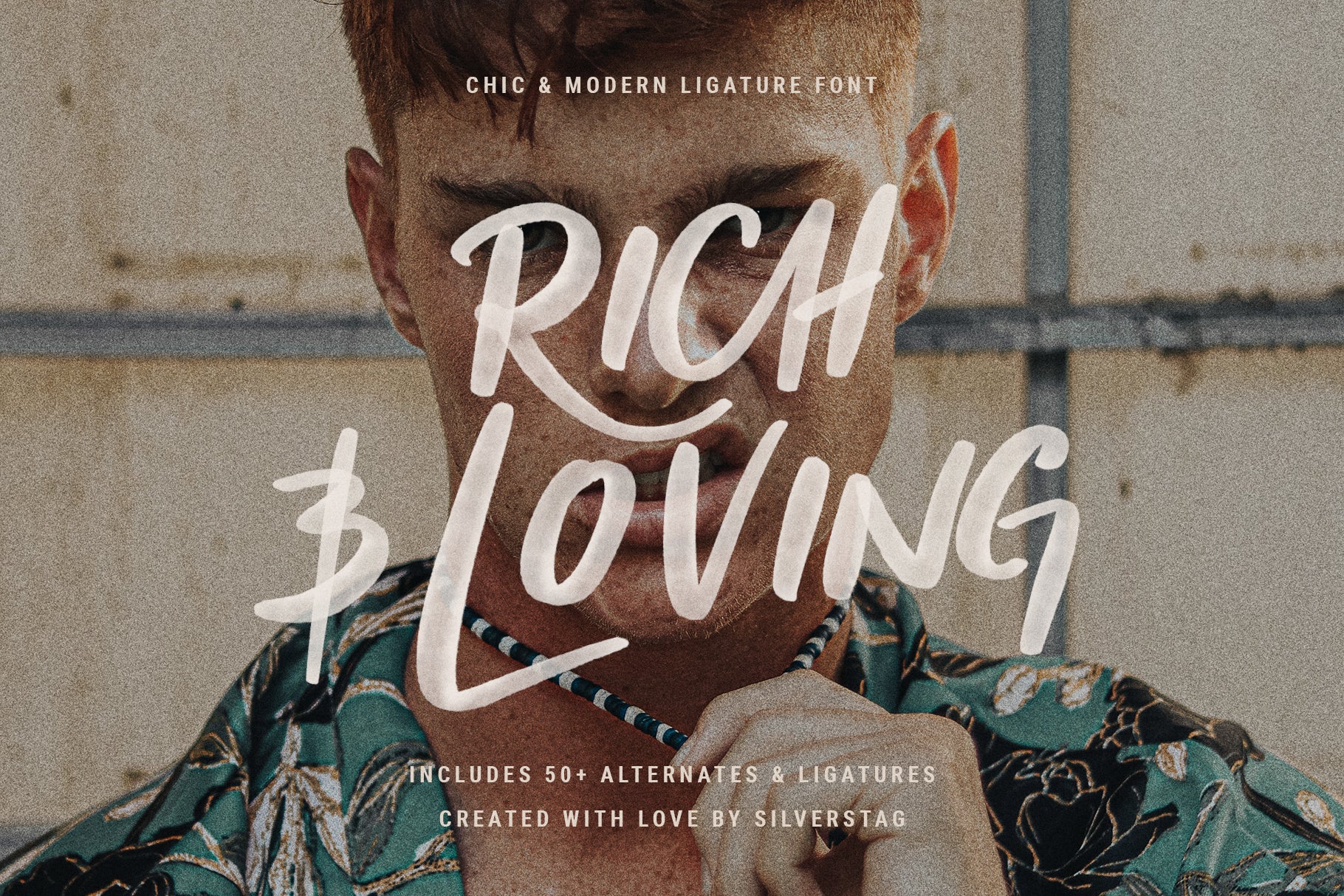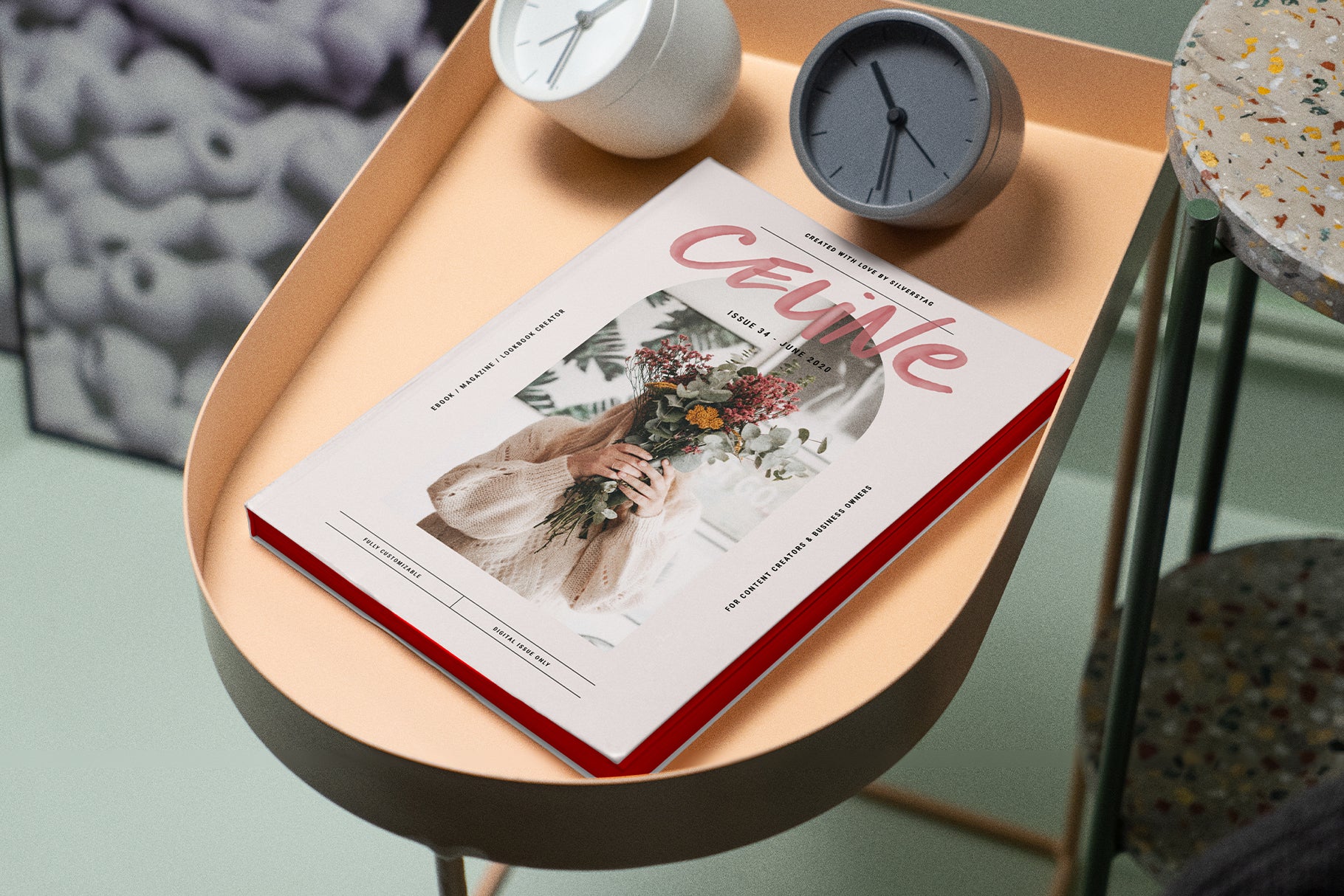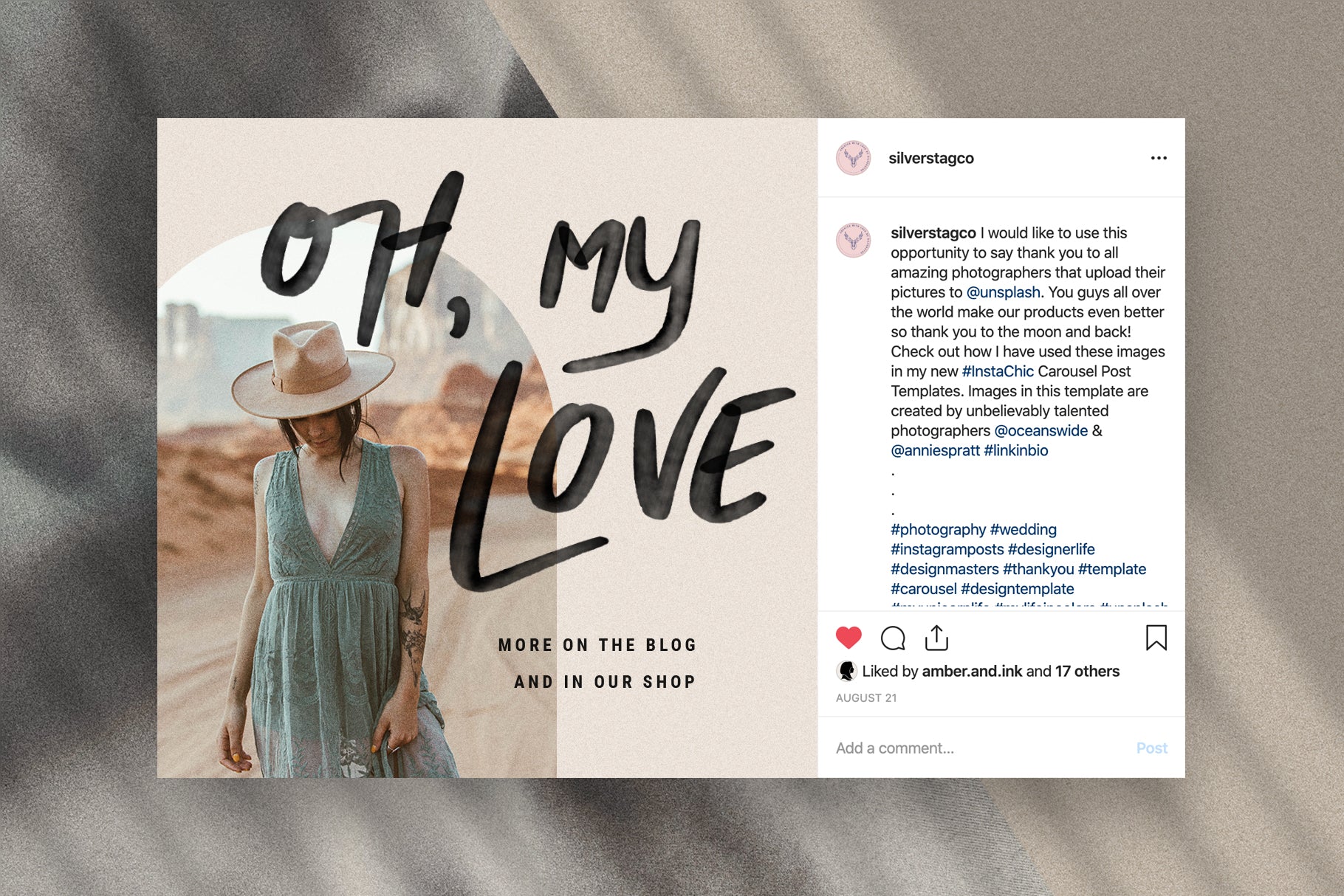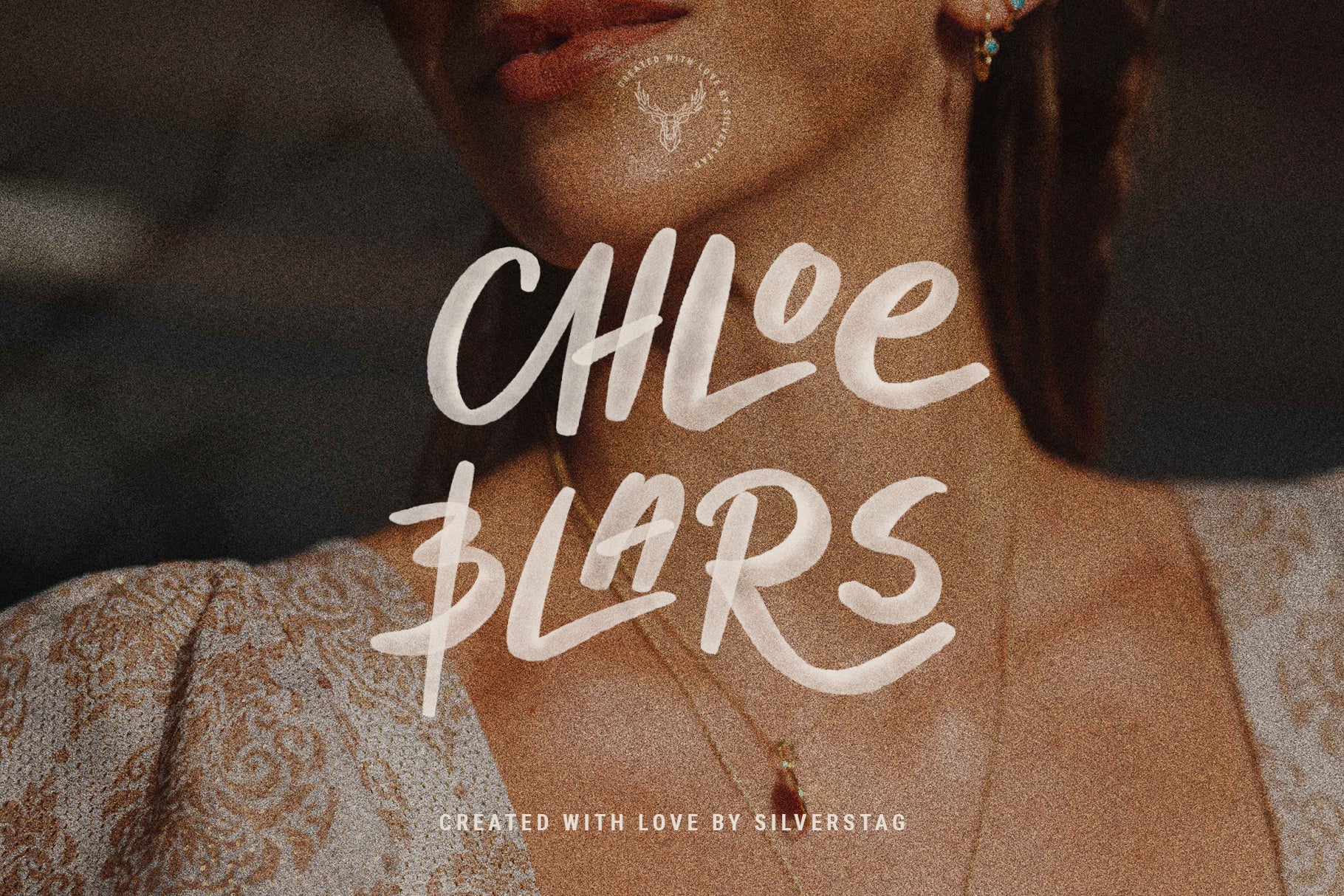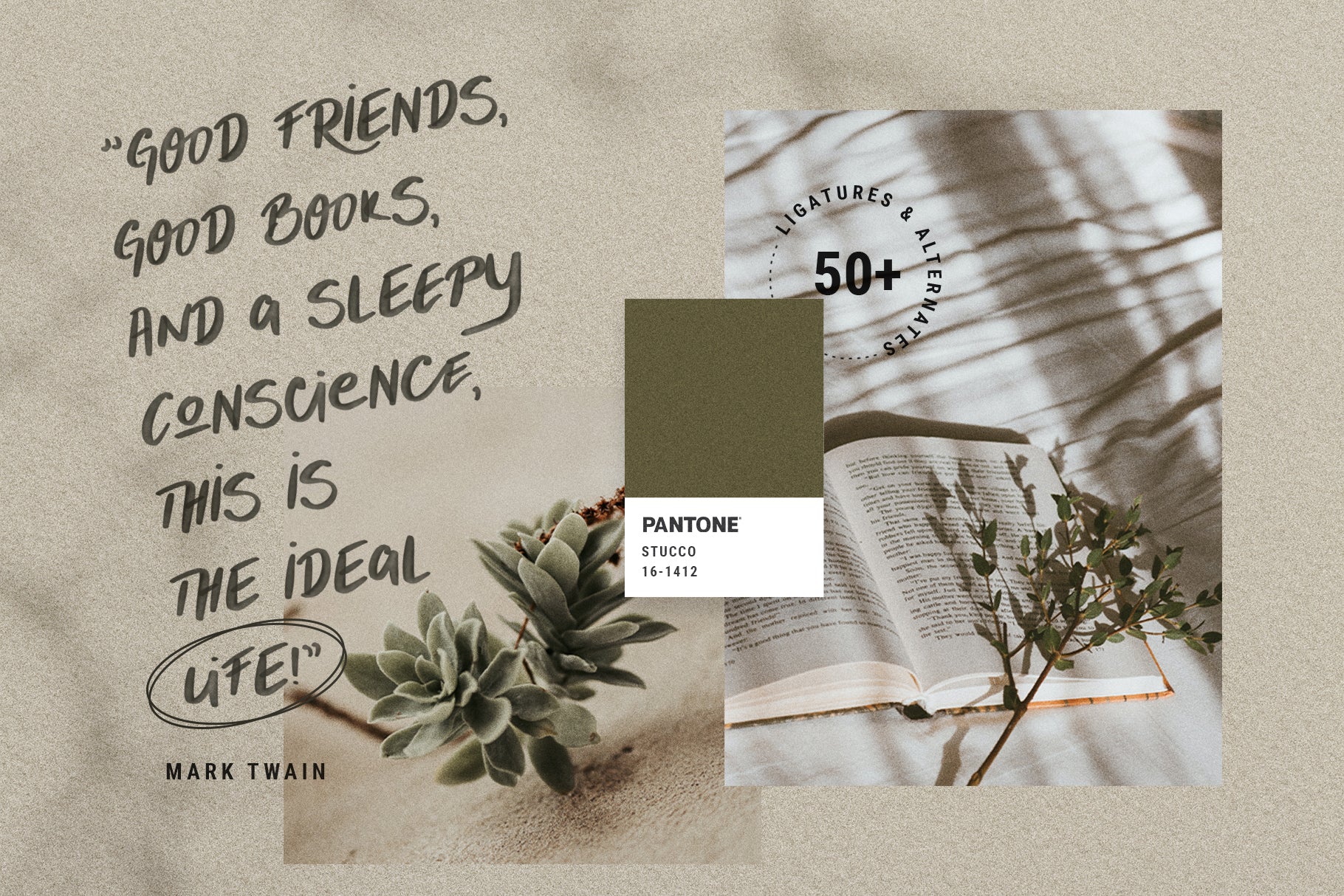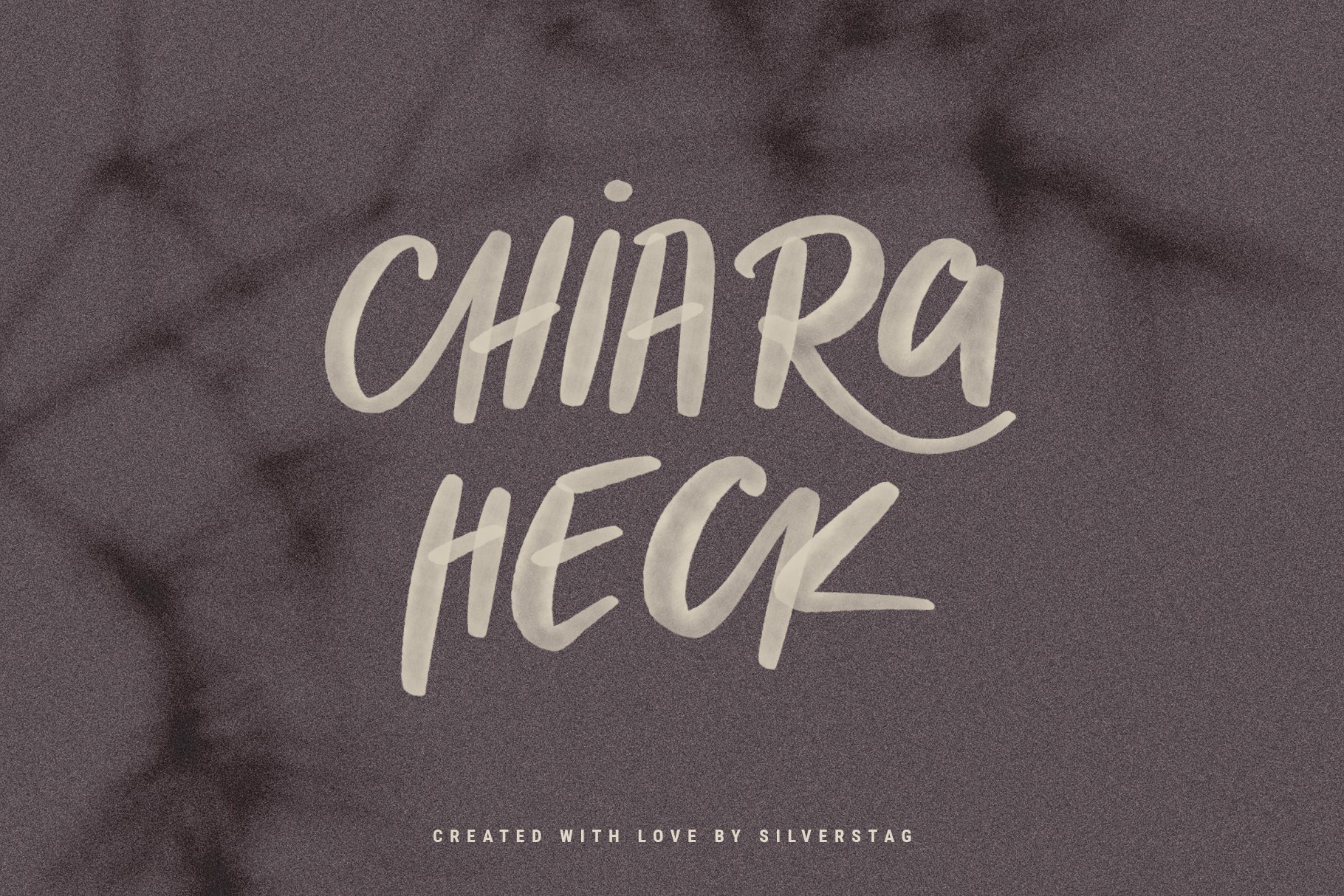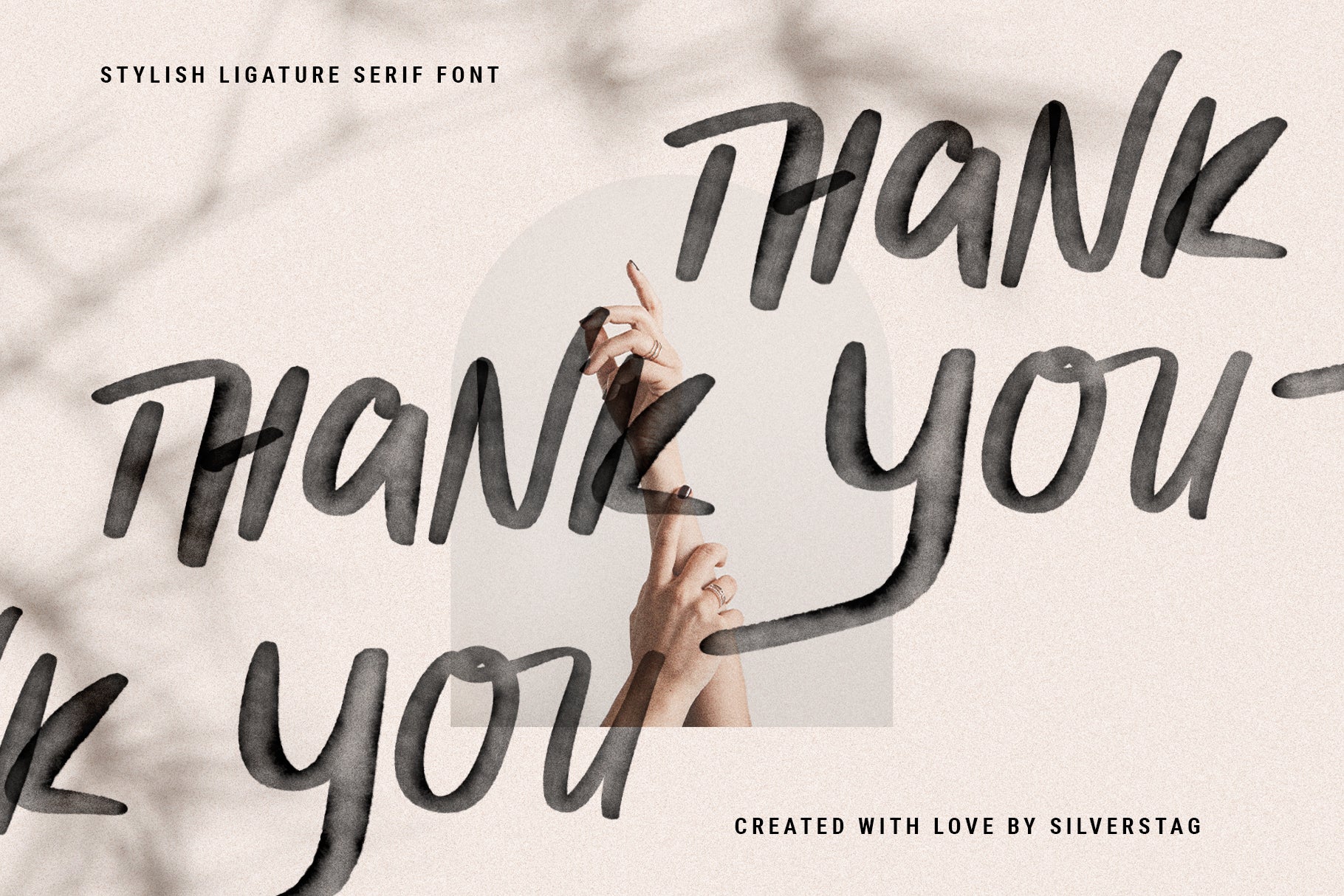
• Chic Lovers watercolor brush script font hero with the bold repeated name and a 50-plus ligatures and alternates badge
• Chic Lovers font spelling Take a Chance in white brush script over a soft beige scene with a partial portrait
• Chic Lovers font reading Rich and Loving in white script across a portrait of a red-haired man in a floral shirt
• Chic Lovers font setting an Oscar Wilde dreamer and moonlight quote in white script on dark teal with an arched photo
• Chic Lovers font on a Ceylie magazine cover resting on a peach tray beside two desk clocks
• Chic Lovers font reading Oh My Love on an Instagram post mockup with a woman in a green dress and sun hat
• Chic Lovers font spelling Hello Love beside a large serif W on a clean magazine spread mockup
• Chic Lovers font reading Chloe Blars in cream brush script over a close-up portrait with gold earrings
• Chic Lovers font setting a Mark Twain good friends quote on a flat lay with succulents an open book and a Pantone swatch
• Chic Lovers font reading Chiara Heck in cream brush script on a muted mauve textured background
• Chic Lovers font setting the Oscar Wilde be yourself quote in dark brush script over a soft hand and cream backdrop
• Chic Lovers font reading Celine and Beck in dark script on kraft paper with tennis-court photos and a ligatures badge
• Chic Lovers font with an oversized LOVERS wordmark framing a photo of a figure behind a sheer curtain
• Chic Lovers font with a repeated Thank You in dark brush script over a raised hand and an arched cream backdrop
CHIC LOVERS - Watercolor SVG Font
CHIC LOVERS is a bold and playful handwritten watercolor SVG font designed to elevate your creative work with a hand-painted, authentic aesthetic. Created with love and care, each letter retains the rich texture and transparency of real watercolor strokes—perfect for designers seeking a truly artistic touch.
Chic Lovers font reading Rich and Loving in white script across a portrait of a red-haired man in a floral shirt
Chic Lovers font on a Ceylie magazine cover resting on a peach tray beside two desk clocks
Chic Lovers font spelling Hello Love beside a large serif W on a clean magazine spread mockup
Chic Lovers font setting a Mark Twain good friends quote on a flat lay with succulents an open book and a Pantone swatch
Chic Lovers font setting the Oscar Wilde be yourself quote in dark brush script over a soft hand and cream backdrop
Chic Lovers font with an oversized LOVERS wordmark framing a photo of a figure behind a sheer curtain
Chic Lovers font spelling Take a Chance in white brush script over a soft beige scene with a partial portrait
Chic Lovers font setting an Oscar Wilde dreamer and moonlight quote in white script on dark teal with an arched photo
Chic Lovers font reading Oh My Love on an Instagram post mockup with a woman in a green dress and sun hat
Chic Lovers font reading Chloe Blars in cream brush script over a close-up portrait with gold earrings
Chic Lovers font reading Chiara Heck in cream brush script on a muted mauve textured background
Chic Lovers font reading Celine and Beck in dark script on kraft paper with tennis-court photos and a ligatures badge
Chic Lovers font with a repeated Thank You in dark brush script over a raised hand and an arched cream backdrop
Chic Lovers font spelling Take a Chance in white brush script over a soft beige scene with a partial portrait
Chic Lovers font reading Rich and Loving in white script across a portrait of a red-haired man in a floral shirt
Chic Lovers font setting an Oscar Wilde dreamer and moonlight quote in white script on dark teal with an arched photo
Chic Lovers font on a Ceylie magazine cover resting on a peach tray beside two desk clocks
Chic Lovers font reading Oh My Love on an Instagram post mockup with a woman in a green dress and sun hat
Chic Lovers font spelling Hello Love beside a large serif W on a clean magazine spread mockup